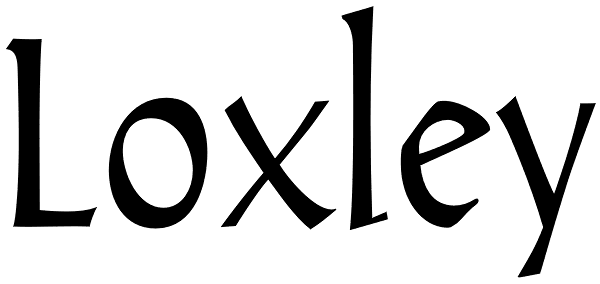
Loxley
Drawn shortly before Jim Rimmer's passing in 2010, Loxley was designed to be used in a fine press edition of the folklore story of Robin Hood. It was named after the cited birthplace of the story's classic hero. Loxley's shapes were inspired the...